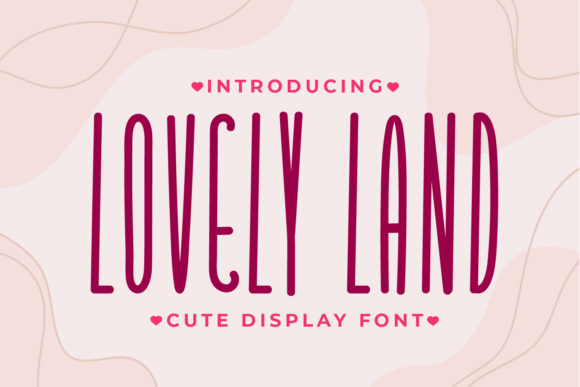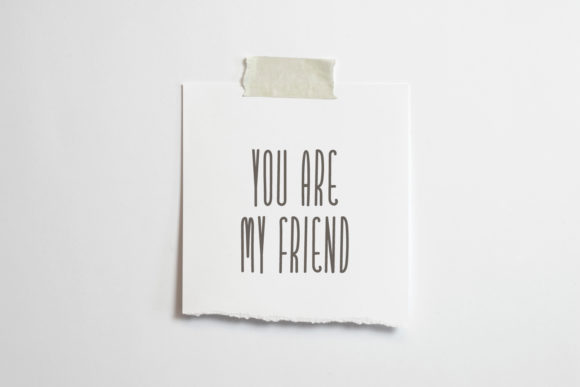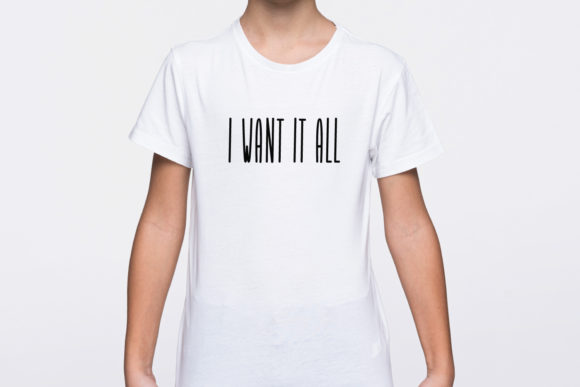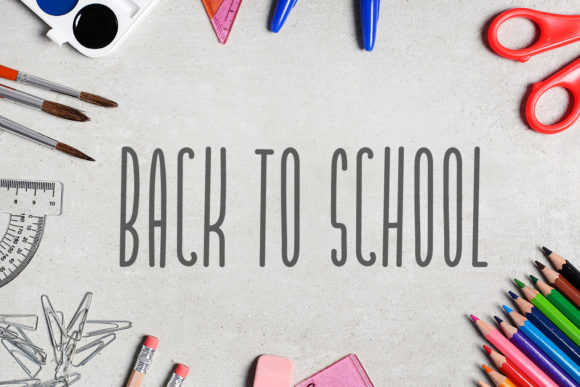
Lovely Land Font: A Cute Display Font for Cricut & DIY Projects
About the Lovely Land Font
Unleash your creativity with Lovely Land Font, a versatile font perfect for a wide range of applications. Lovely Land is a simple and tall display font. Fun, genuine and featuring all round letters, this font will complement each of your design ideas.
Lovely Land’s tall, rounded forms make it ideal for headlines, short impactful statements, and branding applications where a friendly, approachable aesthetic is desired. It works exceptionally well on posters, packaging for children’s products, or social media graphics. However, its limited x-height and overall boldness make it unsuitable for body text or extended reading. Avoid using it in UI design or for lengthy paragraphs.
To complement its playful yet genuine personality, pair Lovely Land with a clean sans-serif like Lato for body copy, creating a strong contrast in weight and style. Alternatively, a delicate script font can add a touch of elegance while maintaining a light-hearted feel. For a more modern approach, consider pairing it with a geometric sans-serif for a balanced contrast between organic and structured forms.
The overall personality of Lovely Land is cheerful and approachable, making it a strong choice for brands targeting a young, family-oriented, or playful audience.